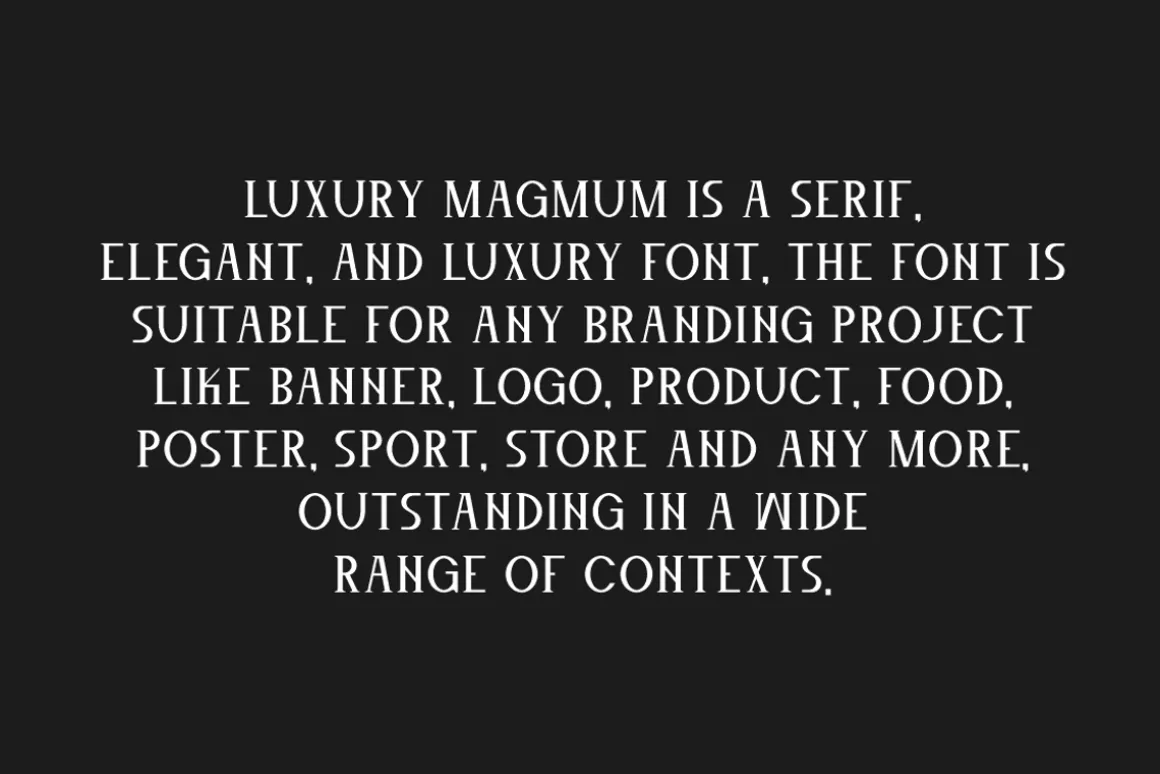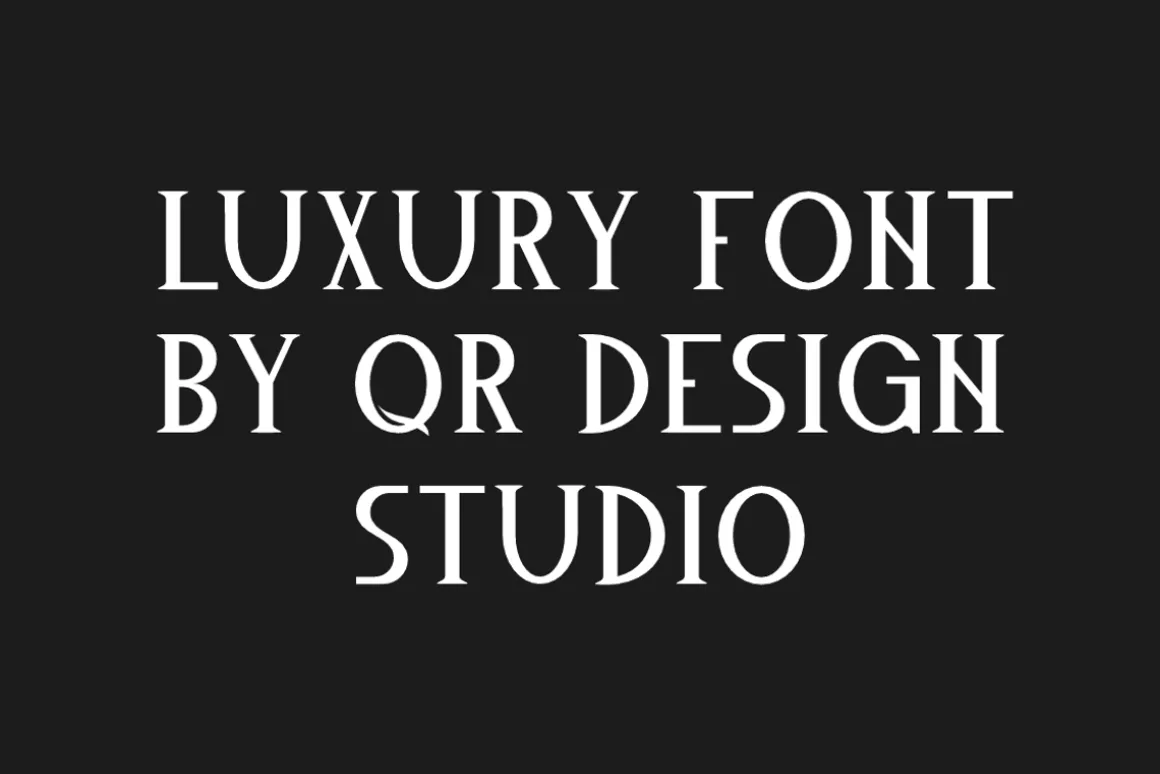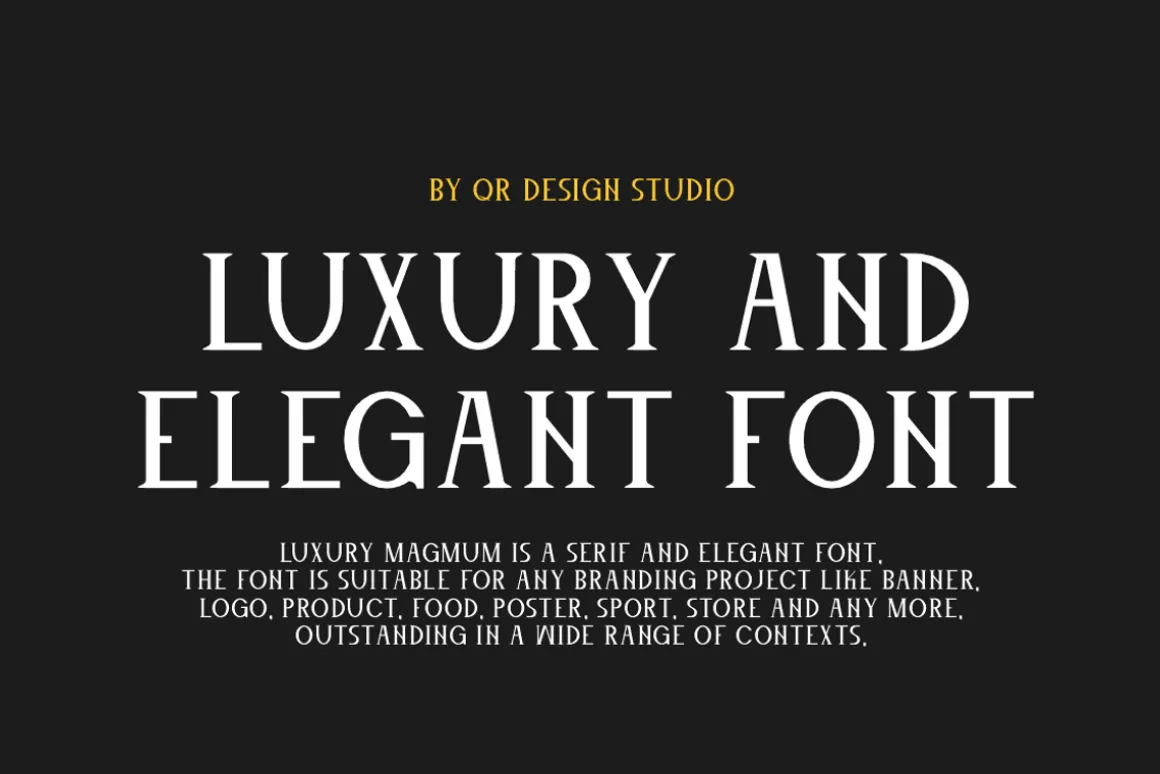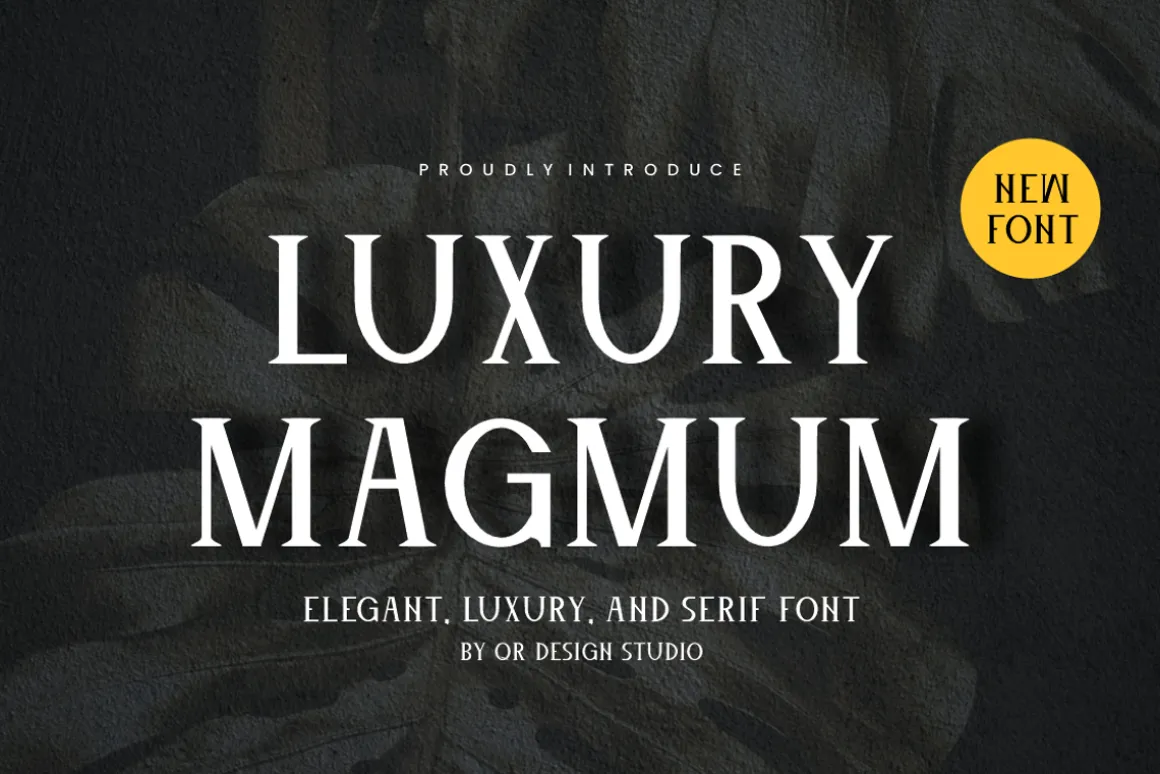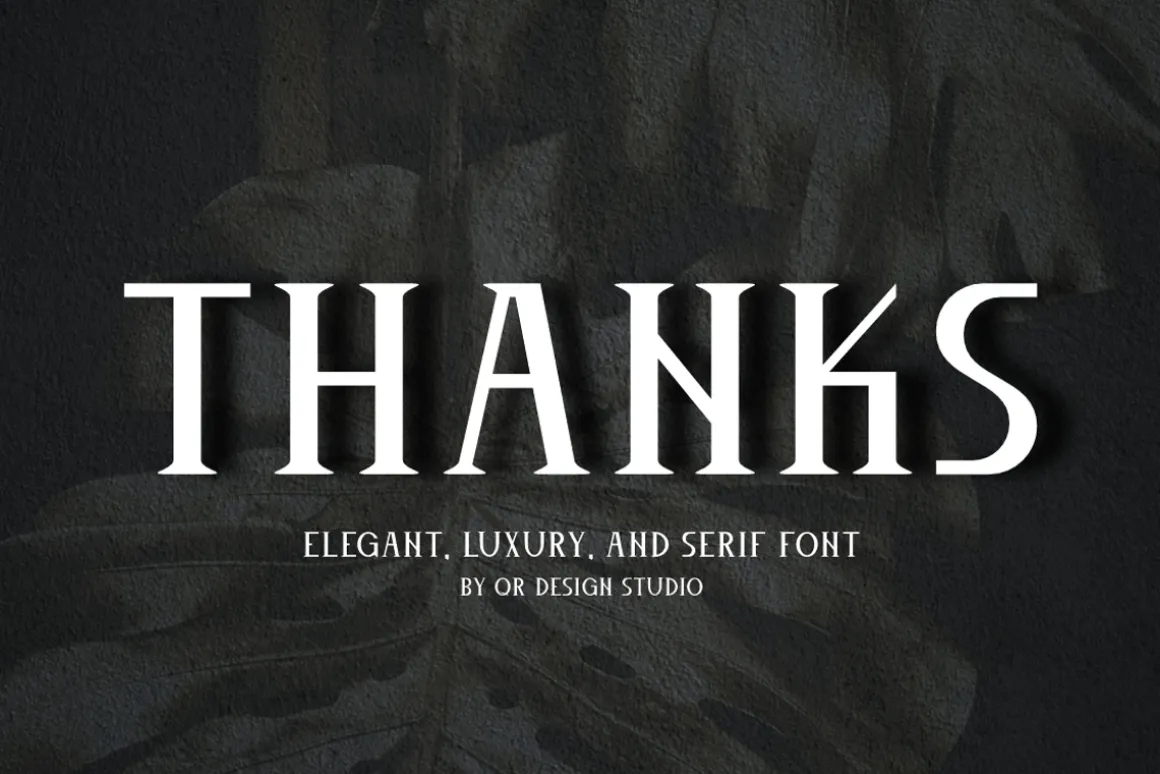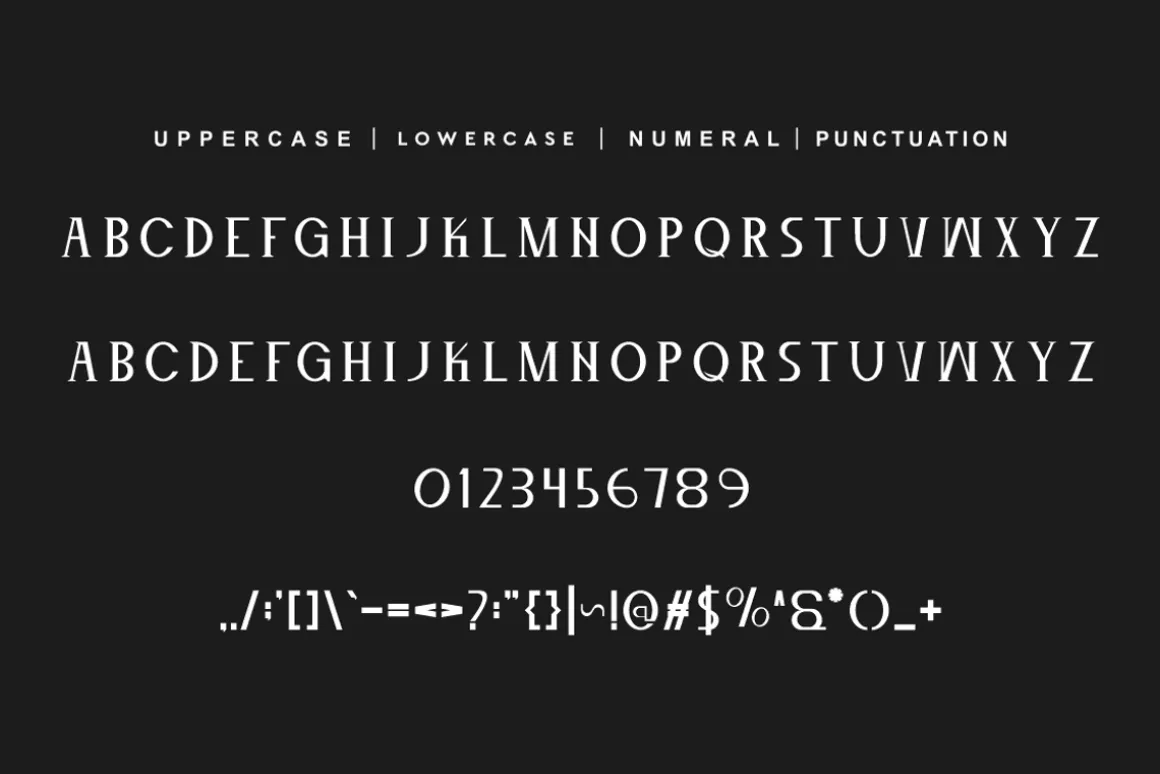
Luxury Magmum Font is a serif and authentic display font.The font is suitable for any branding project like poster, logo, sport, and many more.Outstanding in a wide range of contexts.